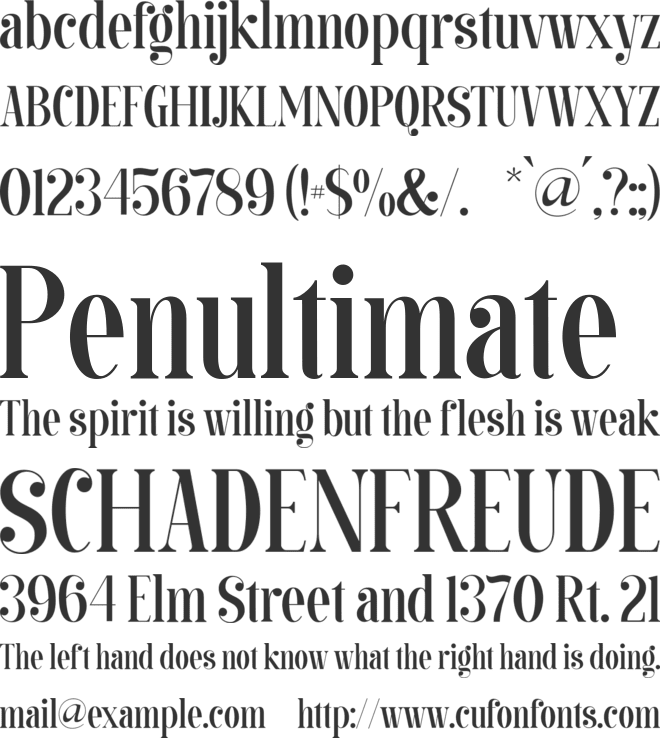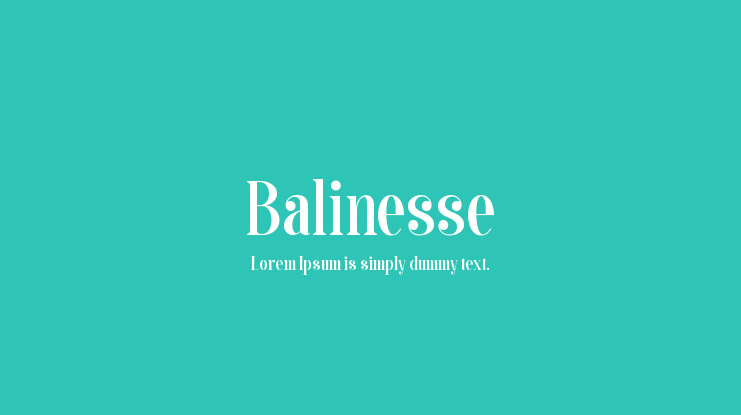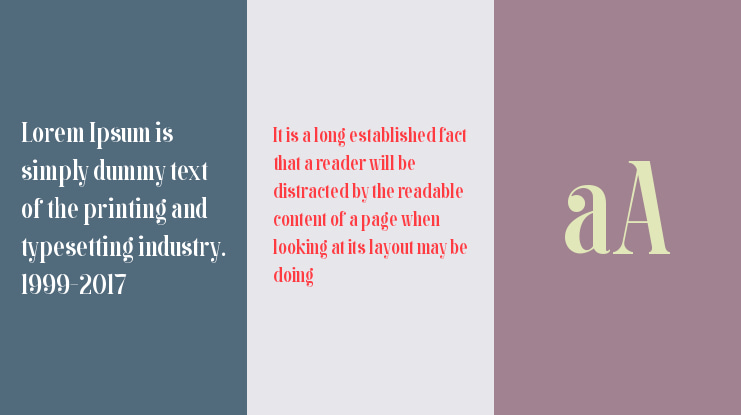
Balinesse Font
Balinesse is an elegant ligature serif font. A contrast display typeface with extra ligature and alternate glyph. Multilingual support, with uppercase, lowercase, numbers and punctuation. Lets ignite your next project with balinesse!